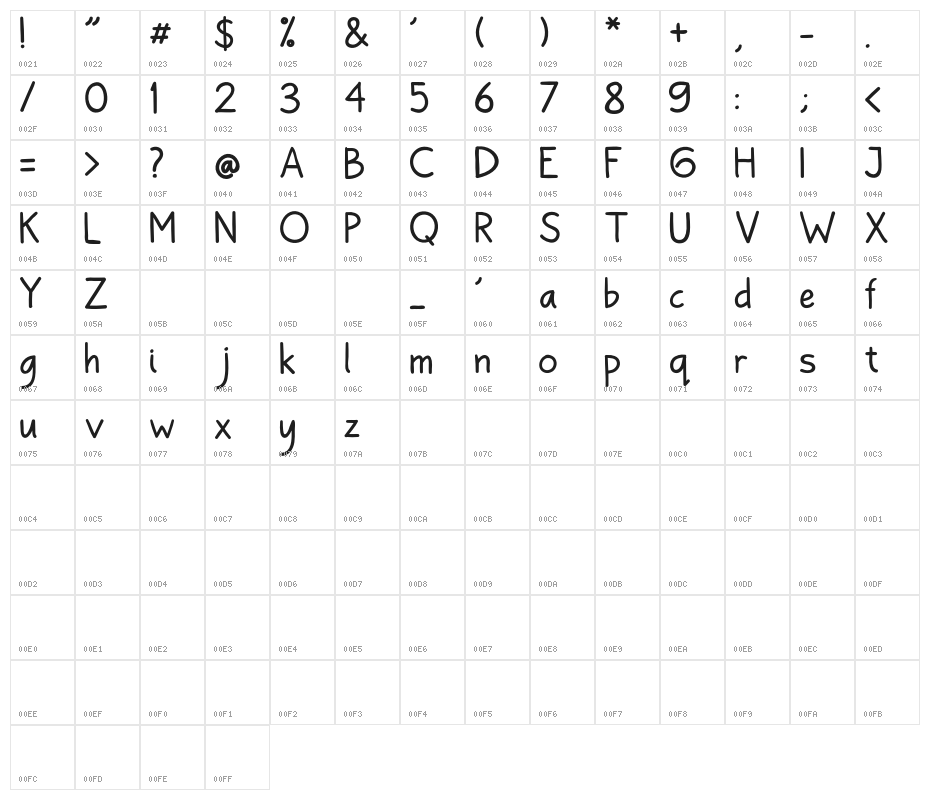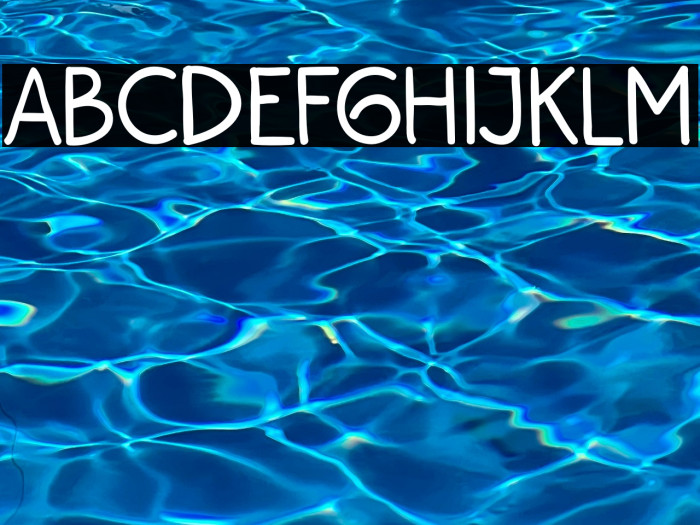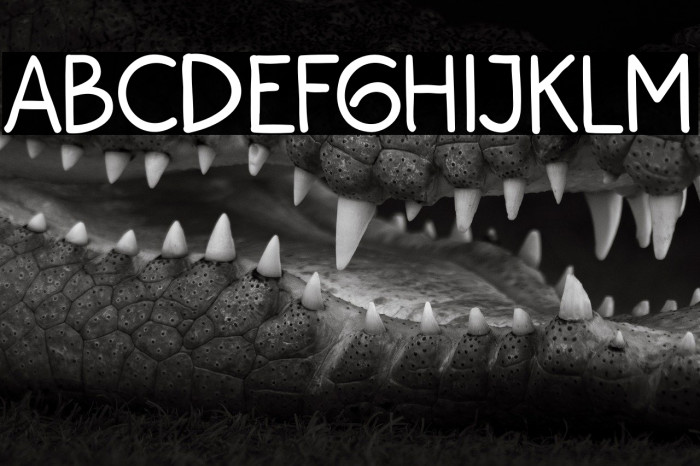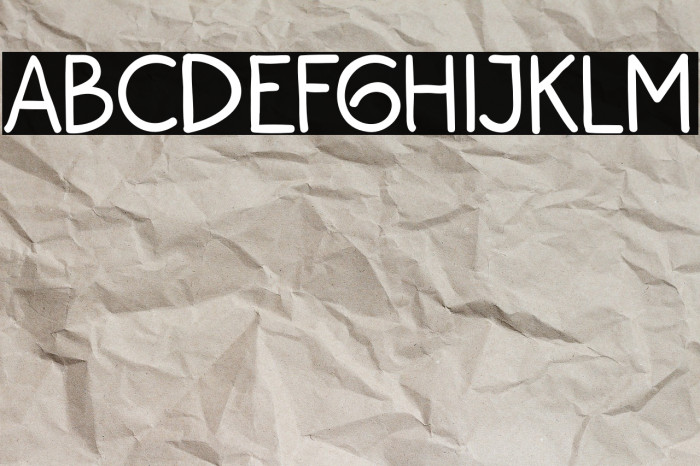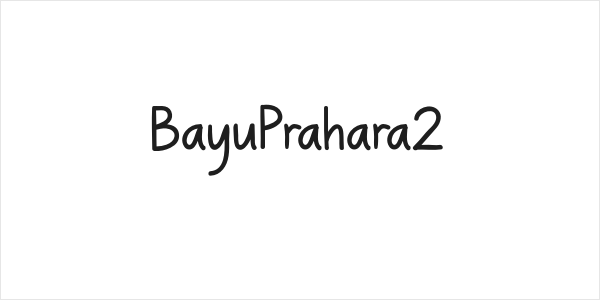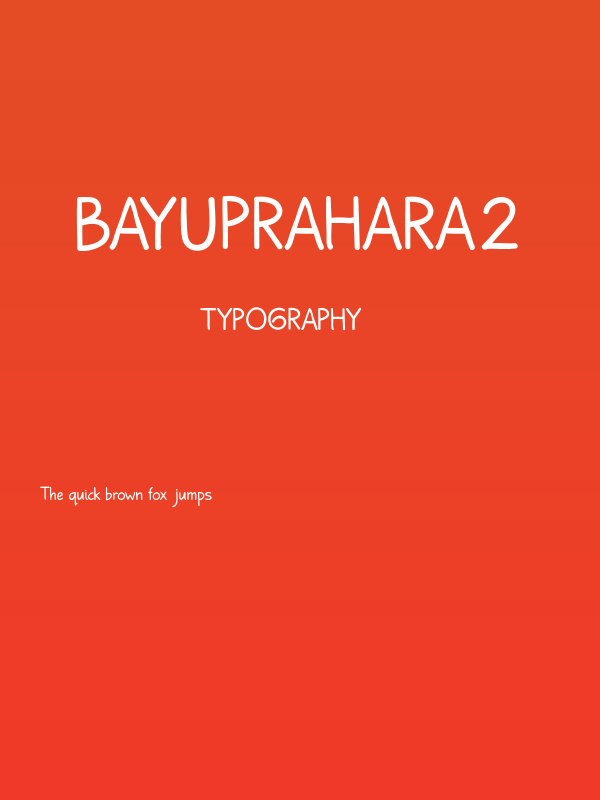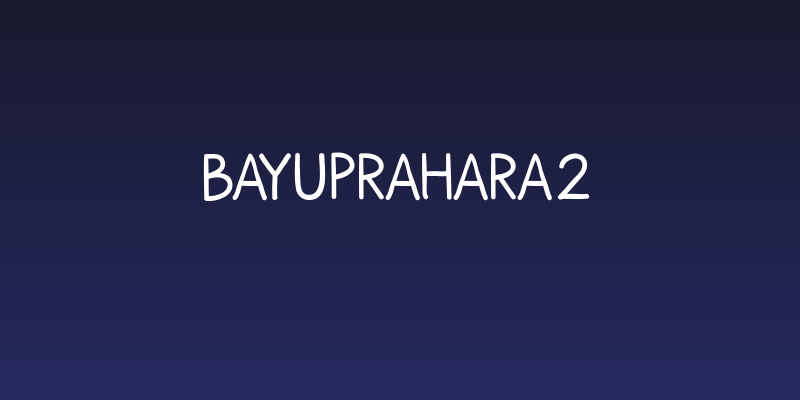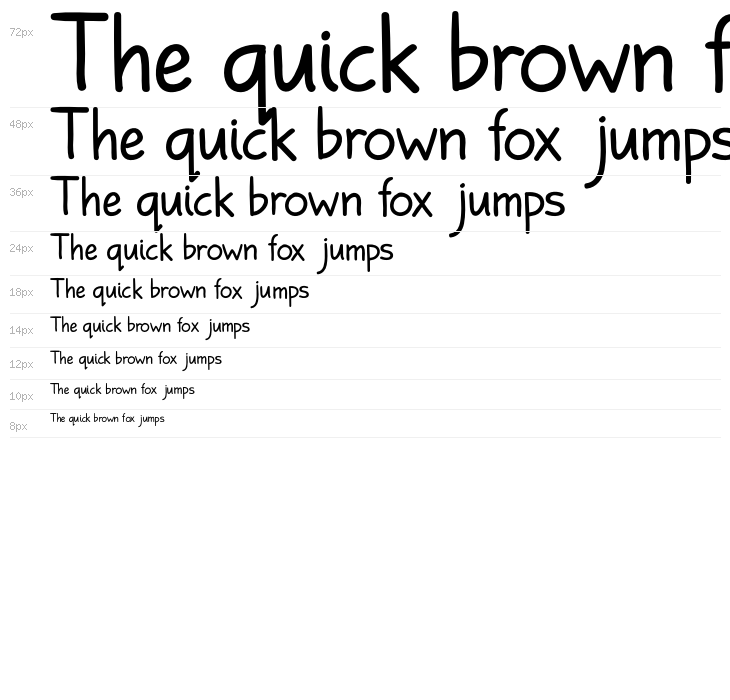
BayuPrahara2 Font
BayuPrahara2 Description
This font features a playful and informal handwritten style, characterized by its smooth, rounded edges and slightly irregular strokes. The uppercase letters are bold and prominent, while the lowercase letters maintain a consistent flow with a touch of whimsy. Numbers and special characters follow the same casual aesthetic, making the font versatile for various creative applications. The overall appearance is friendly and approachable, suitable for projects that require a personal touch.